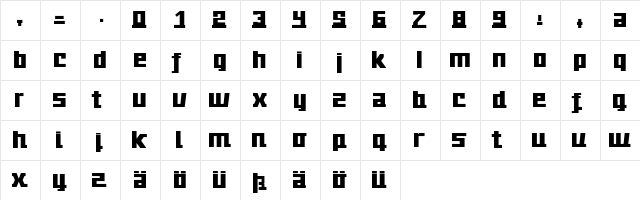
technikus Regular
| Designer | Helmar Fischer |
Design Context for technikus Typeface
technikus has a distinctly futuristic character, with geometric precision and clean angles that feel at home in technology, gaming, and sci-fi contexts.